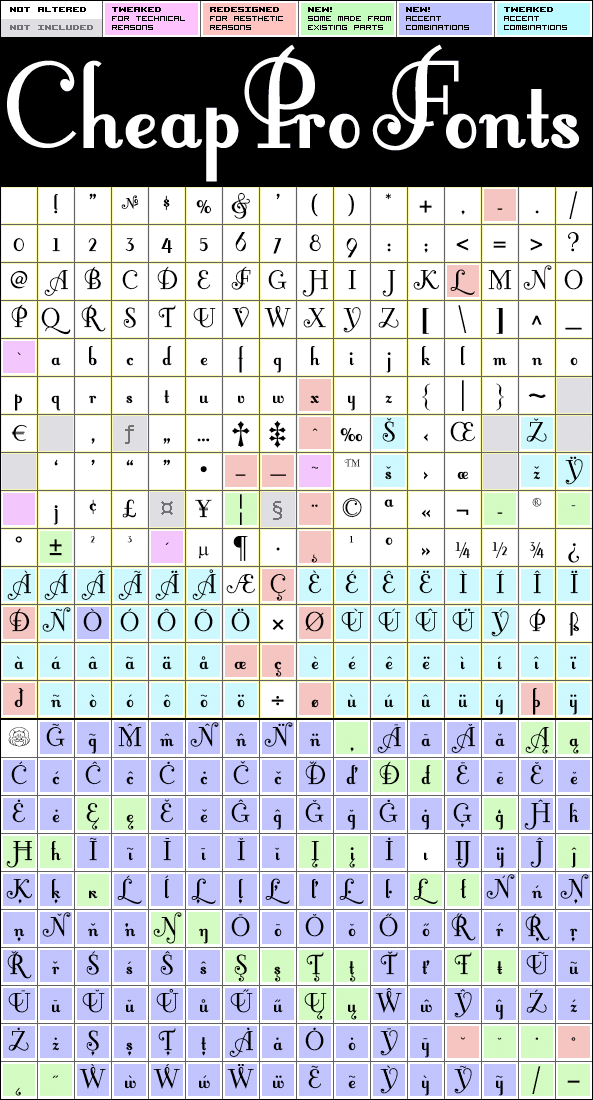
Fontleroy Brown NF Pro
Fontleroy Brown NF Pro by Nick Curtis
Highlights:
374 glyphs!
(218 in original)
138 class kernpairs
= 7637 kerning pairs
(1093 in original)
Description:
I have completely redone the spacing in this font, making the sidebearings more conventional ;) And after replacing the kerning with fresh pairs working together with the new spacing the font looks like a real gem. I love it! :)
Nick Curtis says: "See the notes for Little Lord Fontleroy NF Pro; this is the solid version, produced at the request of the King of Ding, Jeff Levine.."
Fontleroy Brown NF Pro is a professionally reworked font that contains an extended character set for setting text in 65 languages requiring more than the basic A-Z!